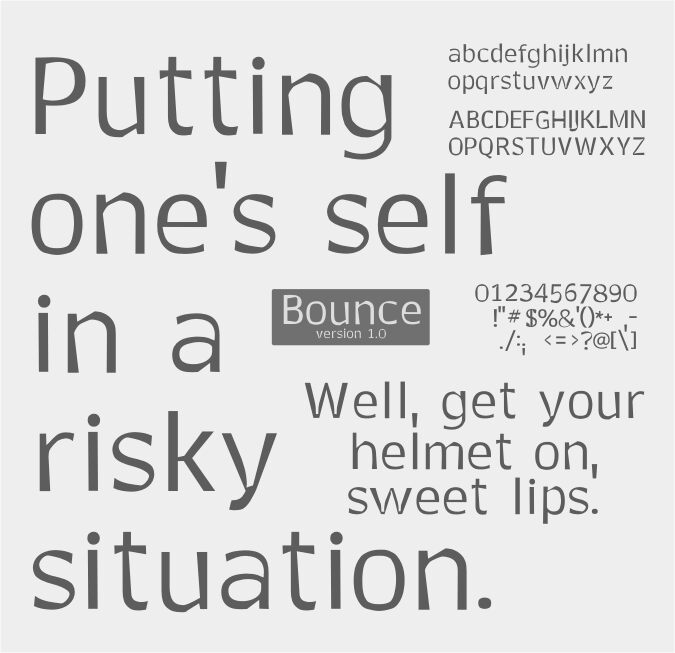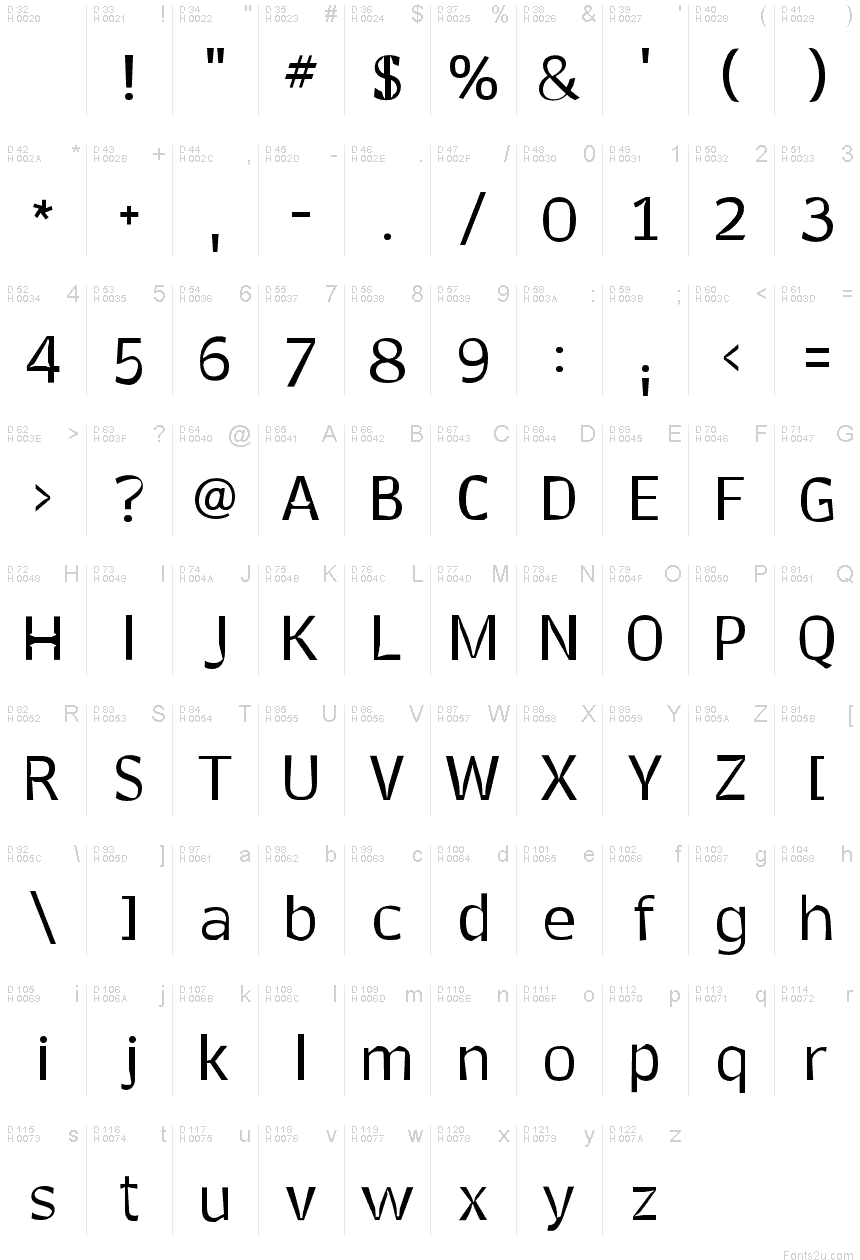
Bounce by Adobe Systems Incorporated is a free experimental sans serif with tall, irregular letters and sharply changing stroke widths. Broad curves meet pinched joints, and several forms lean or flare unexpectedly. Together, these details create a theatrical and slightly unruly impression.
Playful performance and offbeat culture are its clearest territory. It suits music posters, festival graphics, and comedy branding because the uneven silhouettes resemble lively cut-paper lettering. Children's publishing can also use its exaggerated shapes for an audience drawn to unusual, animated type.
Bounce maintains a consistent stroke balance across glyphs while incorporating substantial differences in width. Each glyph has a thinner form that connects to a larger, thicker stroke. The font remains readable at sizes down to 4 points. Text set in Bounce has an even overall tone and color.
Bounce — Prezentace písma